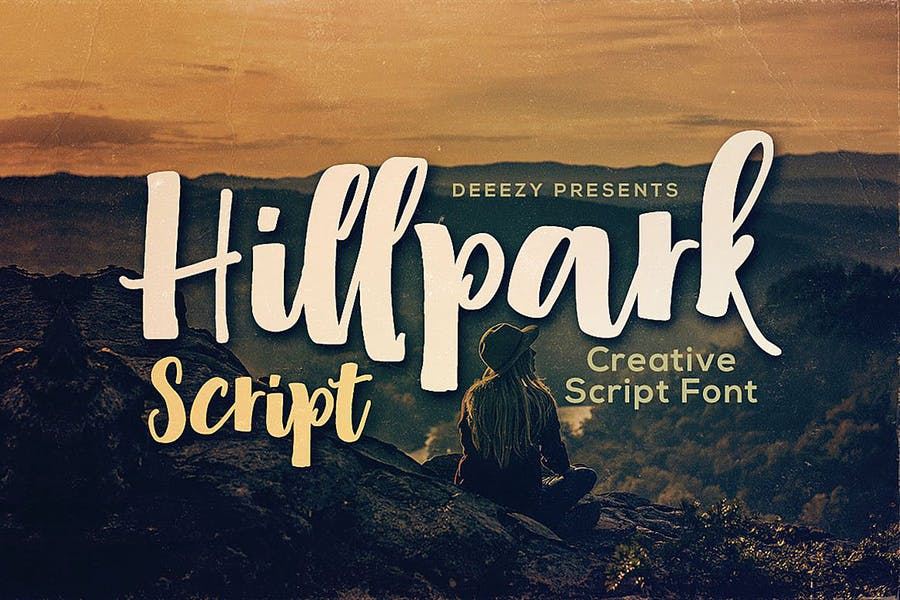
Hillpark Script Font
Hillpark Script Font is perfect for elegant wedding invitations, upscale boutique branding, luxury stationery designs, high-end restaurant menus, sophisticated event materials, premium beauty products, artisanal craft labels, romantic greeting cards, exclusive brand identities, and refined social media graphics.
Hillpark Script Font creates excitement because it embodies timeless elegance and refined sophistication with its graceful flowing letterforms and luxurious handwritten aesthetic. The font's delicate curves and polished character design instantly convey exclusivity and premium quality, making any brand appear distinguished and carefully curated. Its expertly crafted calligraphic details and sophisticated flow create an immediate sense of luxury that captivates audiences seeking elevated experiences and products that reflect their refined taste and appreciation for artisanal craftsmanship.
The Hillpark Script Font family includes multiple weights and styles: Regular, Bold, Light, Medium, Italic, Flourished, Condensed, Extended, Ornamental, and Casual versions. Each variant maintains the font's signature elegant character while offering different levels of formality and decorative styling suitable for various luxury and upscale applications.